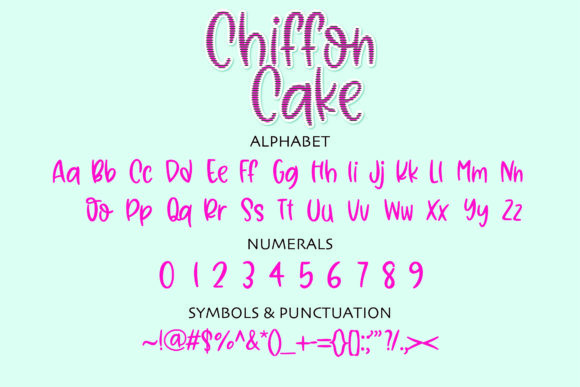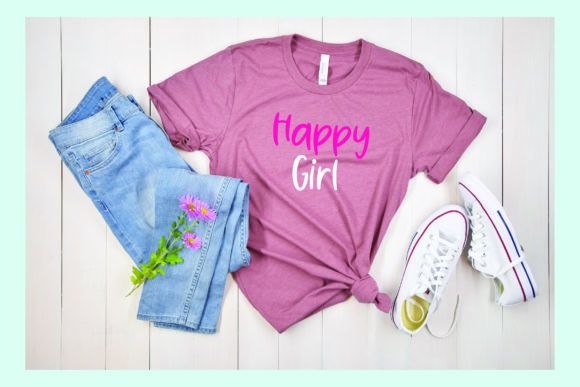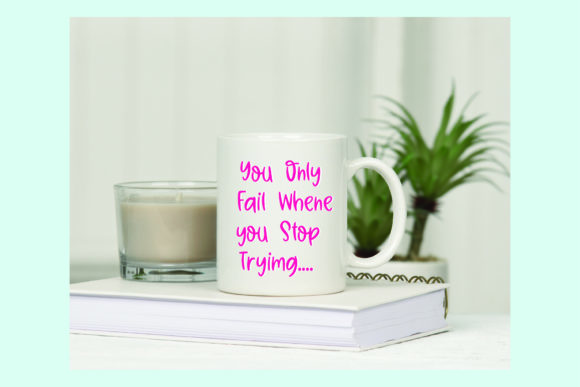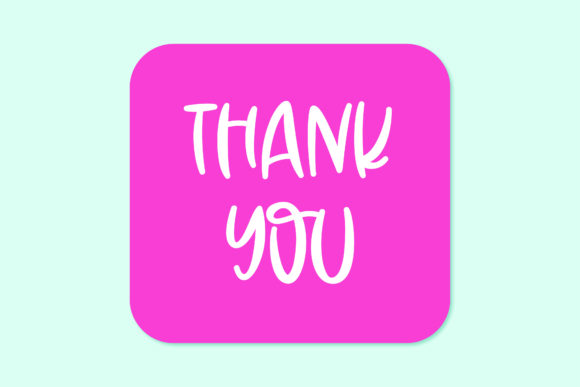
Introducing Chiffon Cake Font: The Sweetest Addition to Your Design Collection
Are you tired of using the same old fonts in your designs? Look no further! Chiffon Cake Font is a lovely and cute script font that exudes joy and is sure to bring a refreshing touch to your creations. This beautiful font was particularly crafted for designers, crafters, and anyone who needs a unique and eye-catching look to their designs.
What Makes Chiffon Cake Font So Special?
Chiffon Cake Font is a carefully crafted script font that features a playful and whimsical style. Its elegant and flowing lines are perfect for creating beautiful headings, titles, and quotes that will make your designs stand out. The font’s unique and distinctive look is inspired by the delicate and airy texture of chiffon cake, making it a perfect fit for designs that require a light and carefree feel.
Key Features of Chiffon Cake Font
- Beautiful Script Style: Chiffon Cake Font features a gorgeous script style that is perfect for creating elegant and sophisticated designs.
- Playful and Whimsical: The font’s playful and whimsical style makes it ideal for designs that require a light and carefree feel.
- Elegant and Flowing Lines: The font’s elegant and flowing lines make it perfect for creating beautiful headings, titles, and quotes.
- Unique and Distinctive: Chiffon Cake Font has a unique and distinctive look that will make your designs stand out from the crowd.
Uses of Chiffon Cake Font
Chiffon Cake Font is a versatile font that can be used in a variety of design projects, including:
- Wedding Designs: The font’s elegant and sophisticated style makes it perfect for wedding designs, such as invitations, decorations, and stationery.
- Party and Event Designs: Chiffon Cake Font is ideal for party and event designs, such as birthday invitations, flyers, and posters.
- Branding and Packaging: The font’s unique and distinctive look makes it perfect for branding and packaging designs that require a light and carefree feel.
- Digital Designs: Chiffon Cake Font can be used in digital designs, such as social media graphics, blog posts, and website headers.
Why Designers and Crafters Love Chiffon Cake Font
Designers and crafters love Chiffon Cake Font for its unique and refreshing look. Here are some reasons why:
- Easy to Read: The font is easy to read, making it perfect for designs that require a clear and legible text.
- Highly Versatile: Chiffon Cake Font is highly versatile and can be used in a variety of design projects.
- Unique and Creative: The font’s unique and creative look makes it perfect for designers and crafters who want to add a personal touch to their designs.
How to Use Chiffon Cake Font in Your Designs
Using Chiffon Cake Font in your designs is easy! Here are some tips:
- Pair it with Other Fonts: Pair Chiffon Cake Font with other fonts to create a unique and interesting contrast.
- Use it for Headings and Titles: Use the font for headings and titles to add a touch of elegance and sophistication to your designs.
Chiffon Cake Font is a beautiful and refreshing script font that is perfect for designers and crafters who want to add a unique and creative touch to their designs. With its elegant and flowing lines, playful and whimsical style, and highly versatile nature, this font is sure to become a favorite in your design collection. So why wait? Download Chiffon Cake Font today and start creating stunning designs that will make your audience smile!